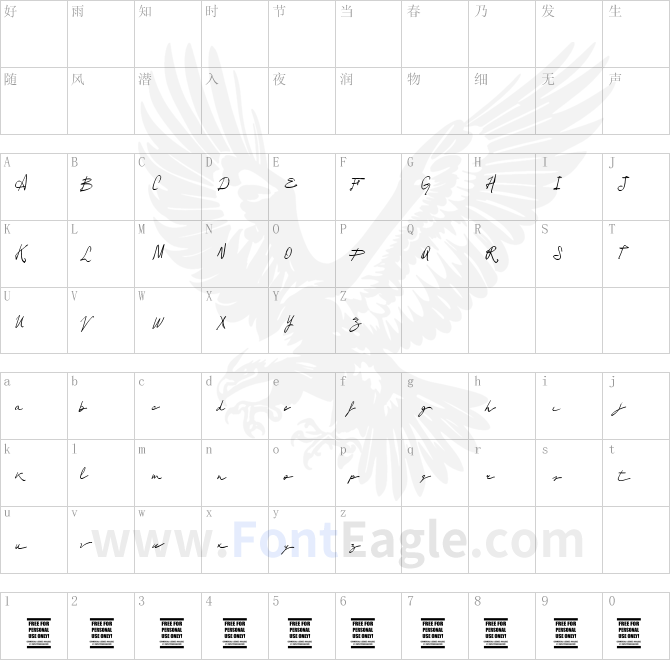
- Font name:Vtks Lounge Set
Vtks-Lounge-Set is a great font, widely used in graphic design, single-page menu design, poster design and other fields, and is deeply loved by designers.Vtks-Lounge-Set download.